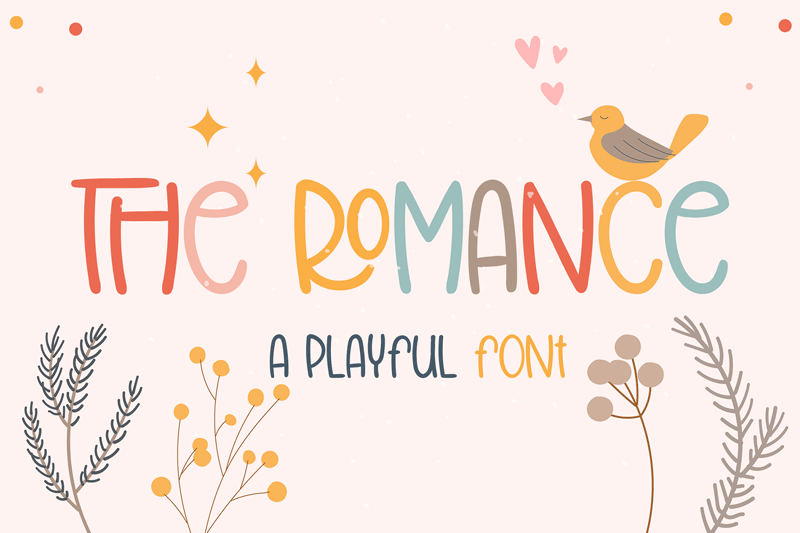
Font name: | The Romance |
Author: | Andang Prasetyo |
Note by Andang Prasetyo | |
The Romance is a cool and friendly handwritten font, perfect for children�s designs, chalkboard quotes, and teaching materials! Its authentic look will add a personal and realistic feel to your designs. Add it with confidence, and notice how it makes your creative projects shine! if You Want to Use for Commercial Project, Please Purchase it on the following link https://www.creativefabrica.com/product/the-romance-2/ref/934867/ For other question, contact us at ANDANG PRASETYO prasetyo.andang1010@gmail.com Terima kasih |